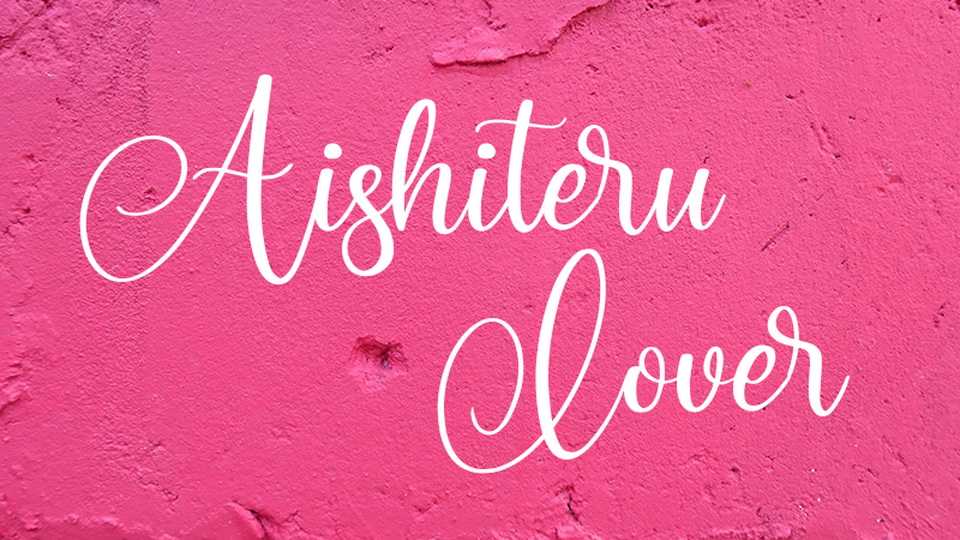
Download Aishiteru Lover font, a beautiful and lovely handwritten typeface. Aishiteru Lover is perfectly suitable for branding, wedding invitations, and other romantic projects.
Designer: Abas Creative